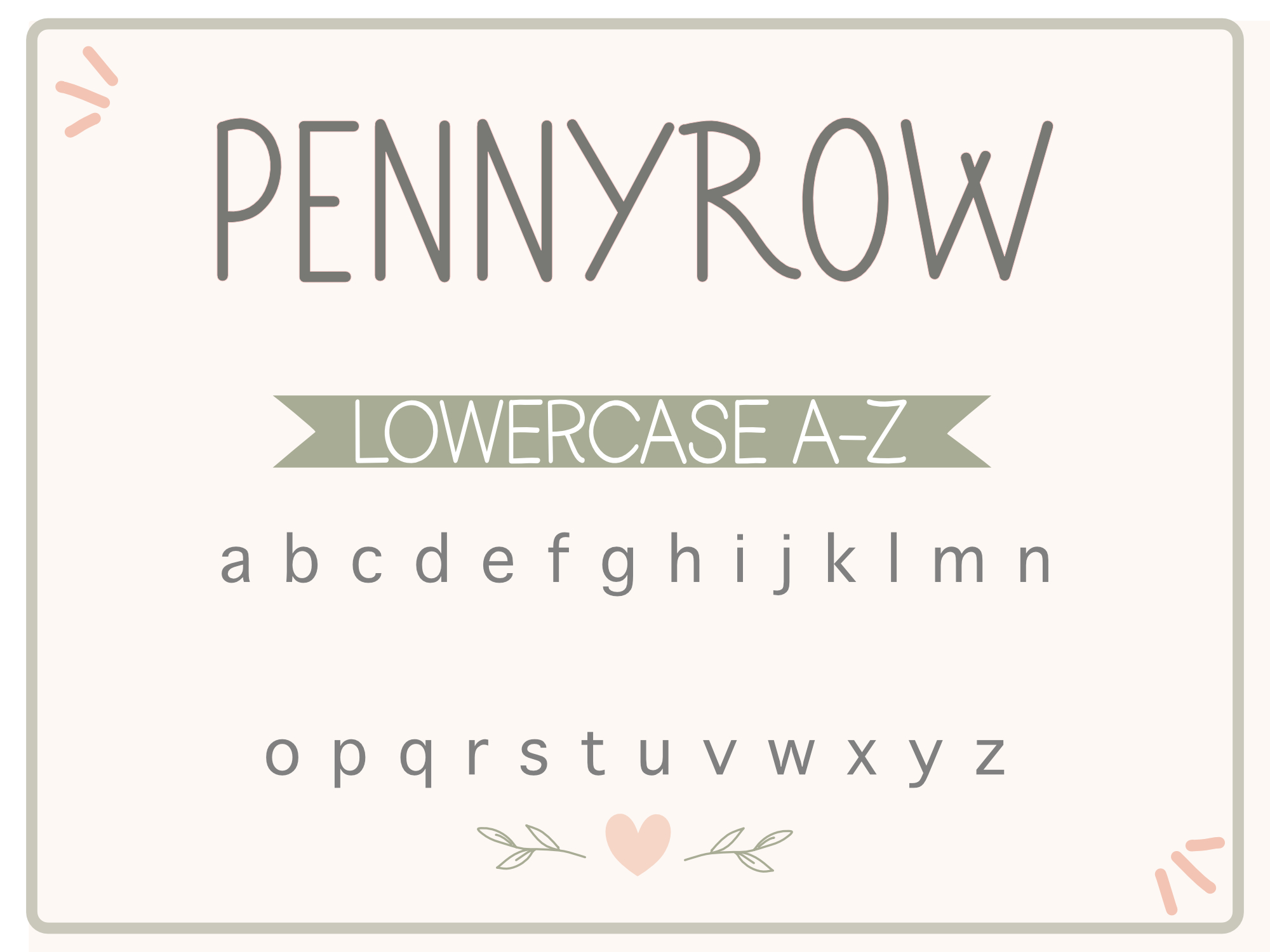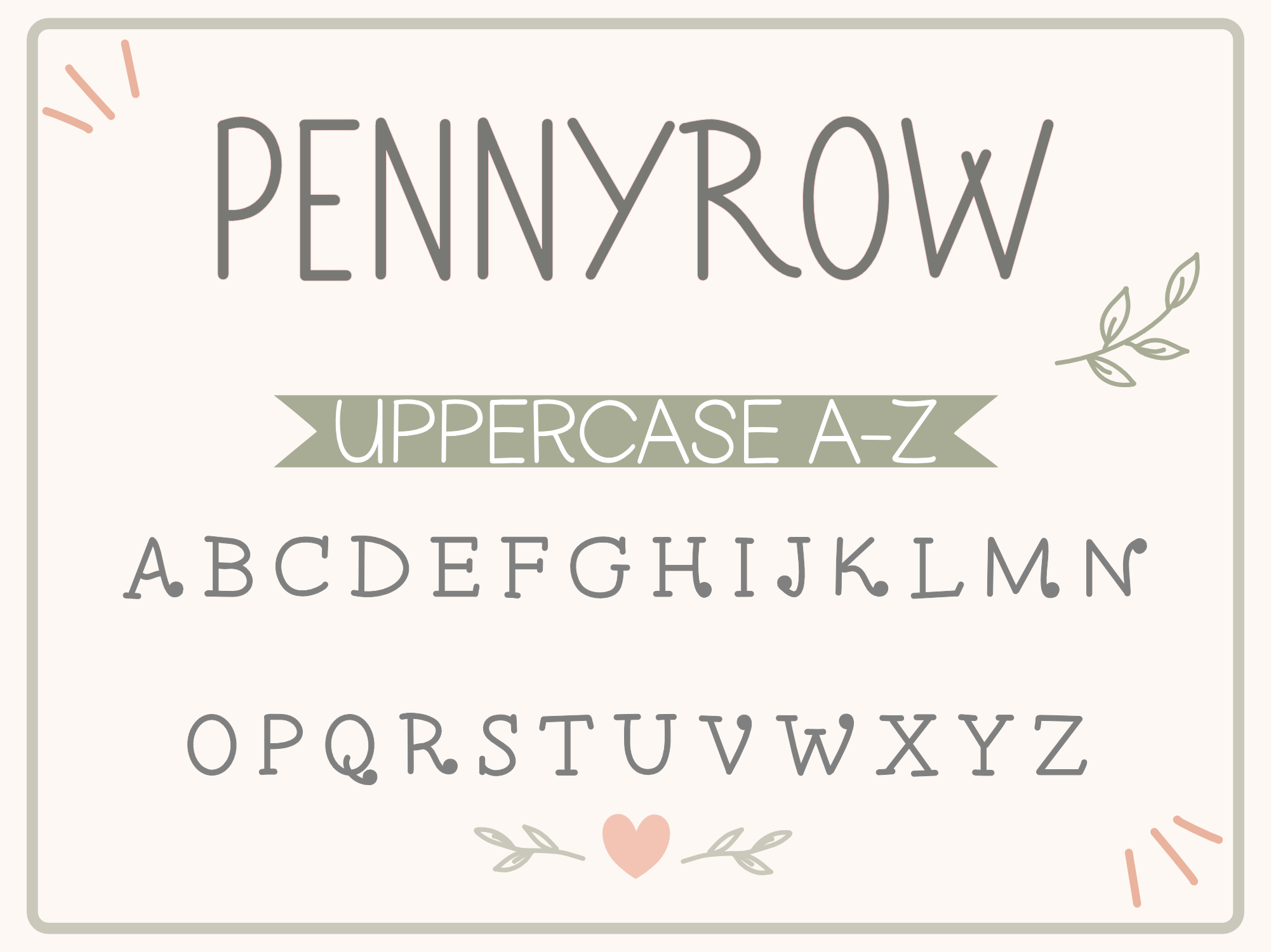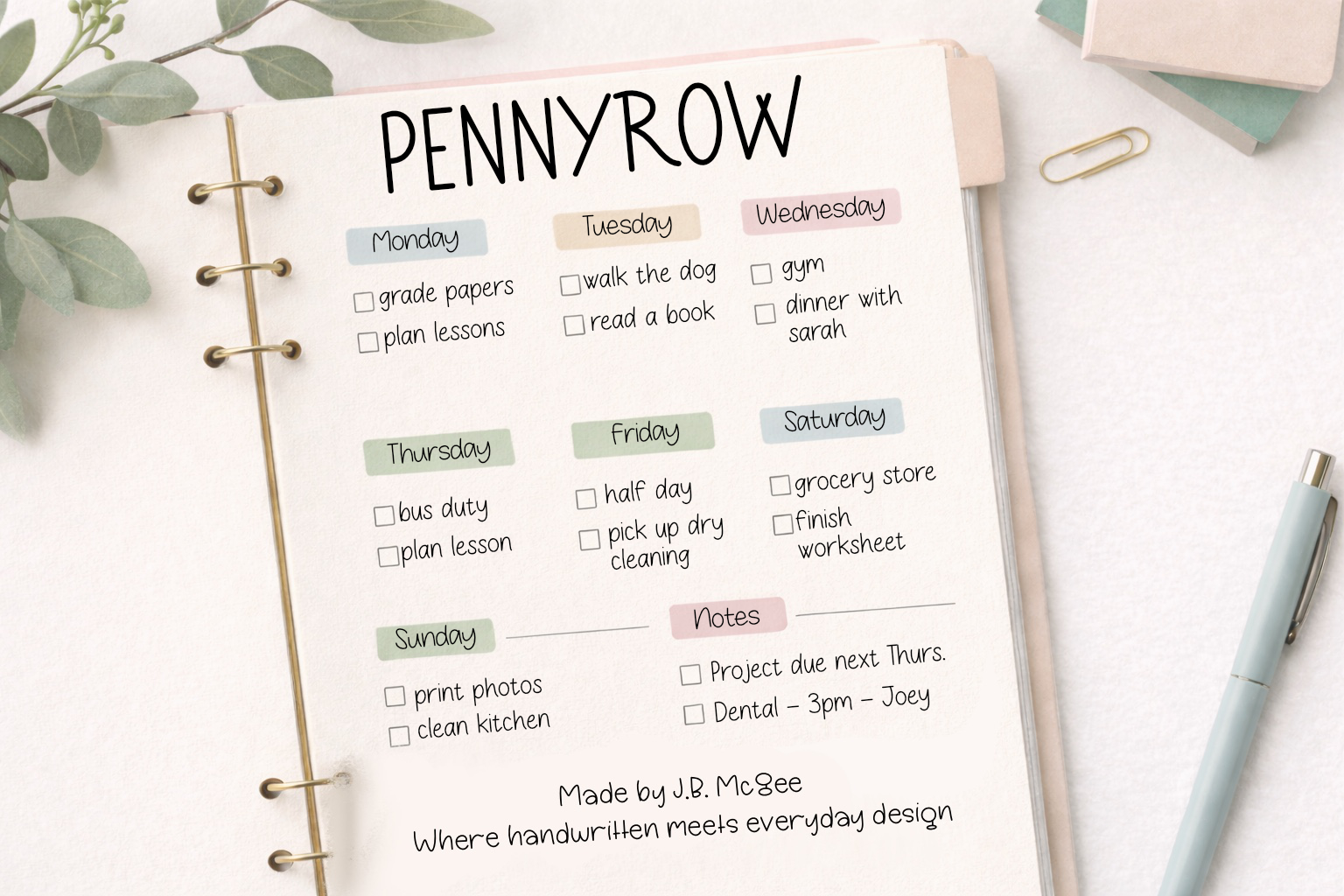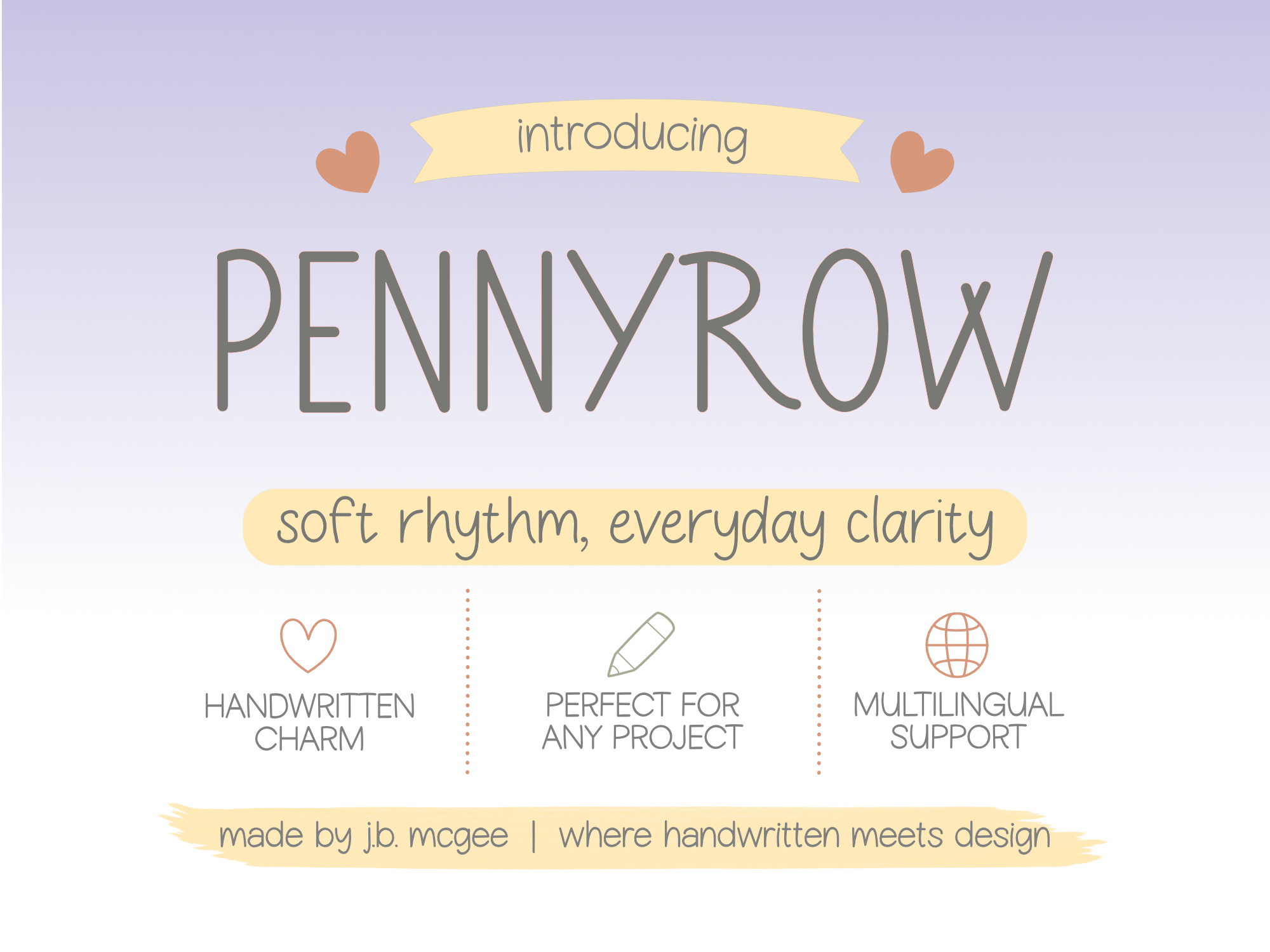
Pennyrow Font
Tall Handwritten Font for Planners, Labels, Teachers & Branding
Pennyrow is a tall handwritten font with narrow letterforms, soft curves, and a clean everyday feel. It keeps the relaxed personality of hand lettering while staying easy to read across both print and digital projects.
The slimmer spacing and rounded shapes help it work especially well in planners, labels, worksheets, packaging, and social media graphics where space matters but personality still counts.
What makes Pennyrow stand out:
• Tall, narrow handwritten letterforms
• Clean monoline strokes for consistency
• Soft rounded shapes with subtle personality
• Easy to read at small and medium sizes
• Balanced for both playful and practical projects
Perfect for:
• Planners and journals
• Teacher resources
• Labels and organization
• Social media graphics
• Packaging and stickers
• Logos and small business branding
• Printables and digital products
• Uppercase and lowercase letters
• Numbers and punctuation
• Symbols and special characters
• Standard multilingual support (as shown in previews)